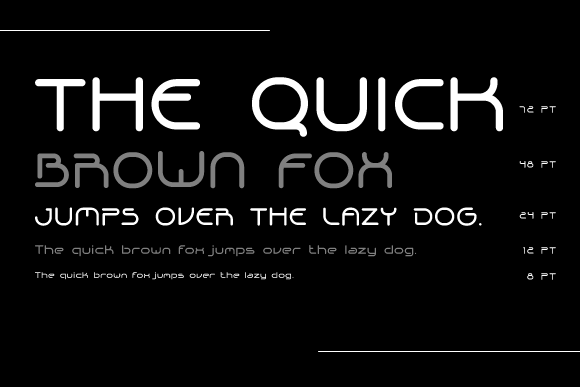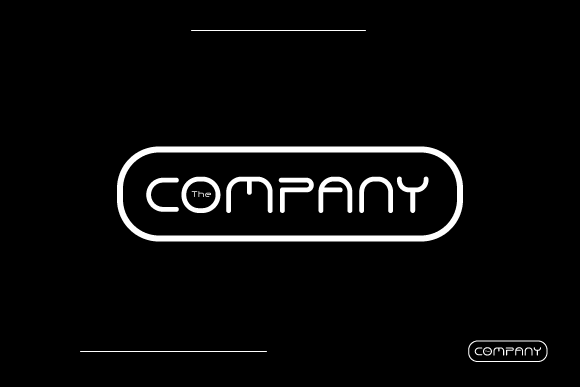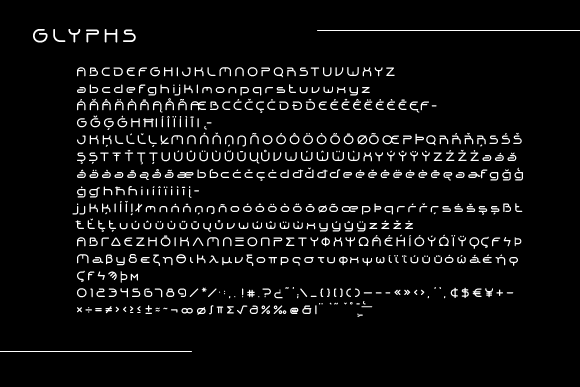
Introduction to Kryxx Font
Remember that moment when you’re working on a creative project and you need the perfect font to elevate your design? The one that screams ‘attention-grabbing’ and makes your message stand out from the crowd? For designers, finding that elusive font can be a game-changer.
That’s where the Kryxx Font comes in – a customized sleek display typeface that’s packed with features to make your design shine. With its wide range of characters, including uppercase and lowercase letters, numbers, punctuations, and special characters, Kryxx Font is the ultimate design resource for any creative project.
Whether you’re working on a company logo, poster, movie title, or magazine cover, Kryxx Font is the perfect choice. Plus, with its transparent background, you can easily integrate it into your design without any distractions. And the best part? You can download it for free, making it an invaluable addition to your design arsenal.
Key Features of Kryxx Font
- High-quality design font with a transparent background, ideal for creative projects and design resources.
- Unique characteristics: Geometric shapes and modern typography make Kryxx Font perfect for modern branding, logos, and creative projects.
Honest Review: Kryxx Font
I recently came across the Kryxx Font and was eager to give it a try. As a designer, I’m always on the lookout for high-quality design resources to enhance my creative projects.
One of the things that stood out to me about the Kryxx Font is its versatility. It’s a clean and modern font that works well in a variety of contexts, from digital design to print materials.
- ✨ High-quality design: The Kryxx Font is well-designed and looks great on a transparent background, making it perfect for creative projects.
However, I did encounter a few limitations with the Kryxx Font. ⚠️ Limited character set: The font only includes a basic set of characters, which may not be suitable for designers who need to use non-ASCII characters.
Overall, I’m impressed with the Kryxx Font and would recommend it to designers who are looking for a high-quality, free font for their creative projects.
Tips for Getting the Most Out of Kryxx Font
Use the Kryxx Font on a transparent background to create a sleek and modern look. Experiment with different font sizes and styles to add depth and interest to your design.
The Kryxx Font is perfect for various design projects, including:
- Graphic design and branding
- Digital art and illustration
- Print design and marketing materials
Alternatives to Kryxx Font
Can I use the Kryxx Font with a transparent background?
Yes, the Kryxx Font is designed to work seamlessly with transparent backgrounds. This makes it perfect for use in digital design projects where a transparent background is required, such as website headers, social media graphics, or mobile app icons.